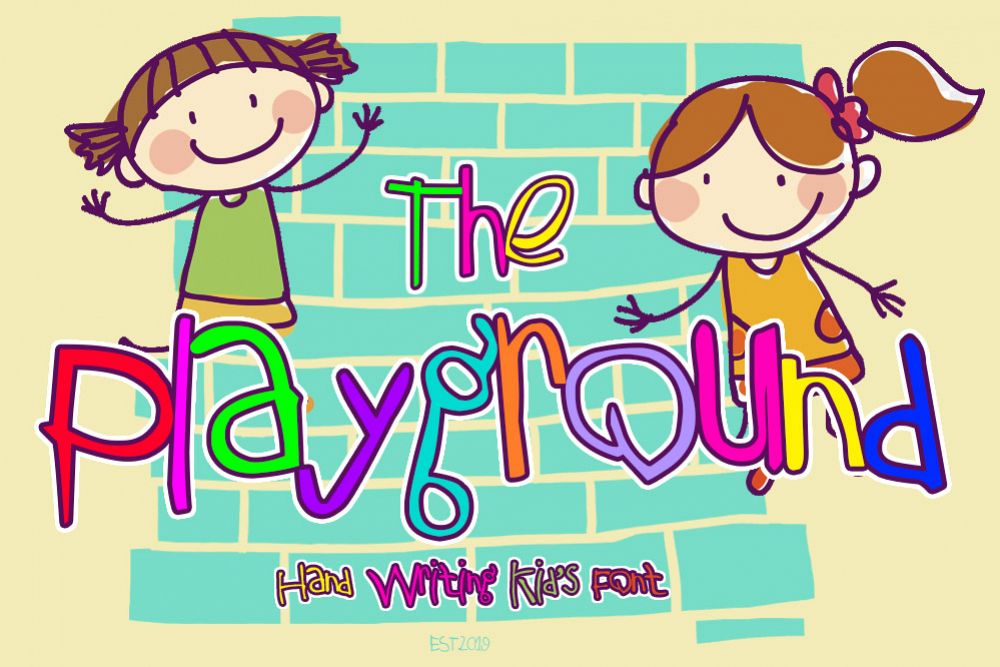
The Playground
Playground
Hey everyone, introducing the latest fonts in the form of small children's handwriting. This font is perfect for story books, novels, comics or for whatever your needs. This font consists of uppercase, lowercase, numeral & punctuations. good luck and enjoy it. thanks.